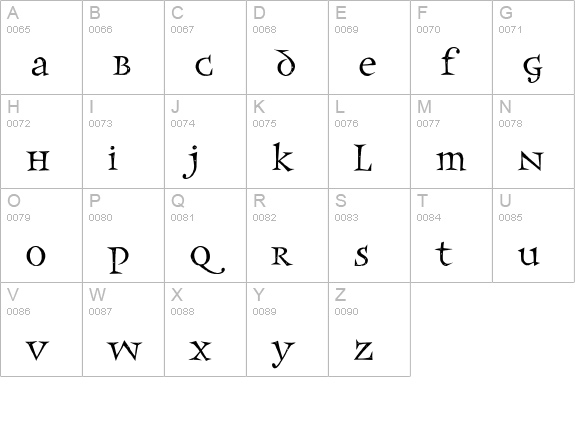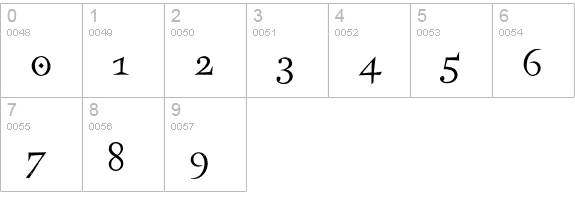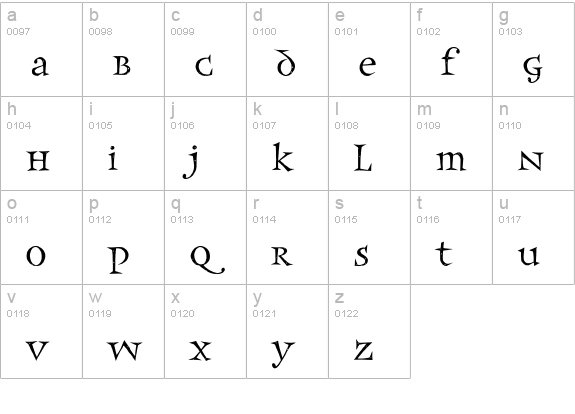
Frances Uncial Std Font Details
Frances Uncial Std font is a timeless and elegant typeface that exudes a classic charm and sophistication. Its graceful curves and intricate details make it perfect for adding a touch of refinement to any design project. The ornate letterforms of Frances Uncial Std font evoke a sense of tradition and artistry, making it ideal for invitations, wedding stationery, and other special occasions. This exquisite font is not only visually stunning but also versatile, suitable for both formal and informal settings. Whether used for branding, packaging, or editorial design, Frances Uncial Std font adds a touch of elegance and uniqueness to any project. The best part? Frances Uncial Std font is completely free to download at FontsMarket.com. Don't miss out on the opportunity to enhance your designs with this beautiful and timeless typeface. Download Frances Uncial Std font today and elevate your creative projects to new heights.